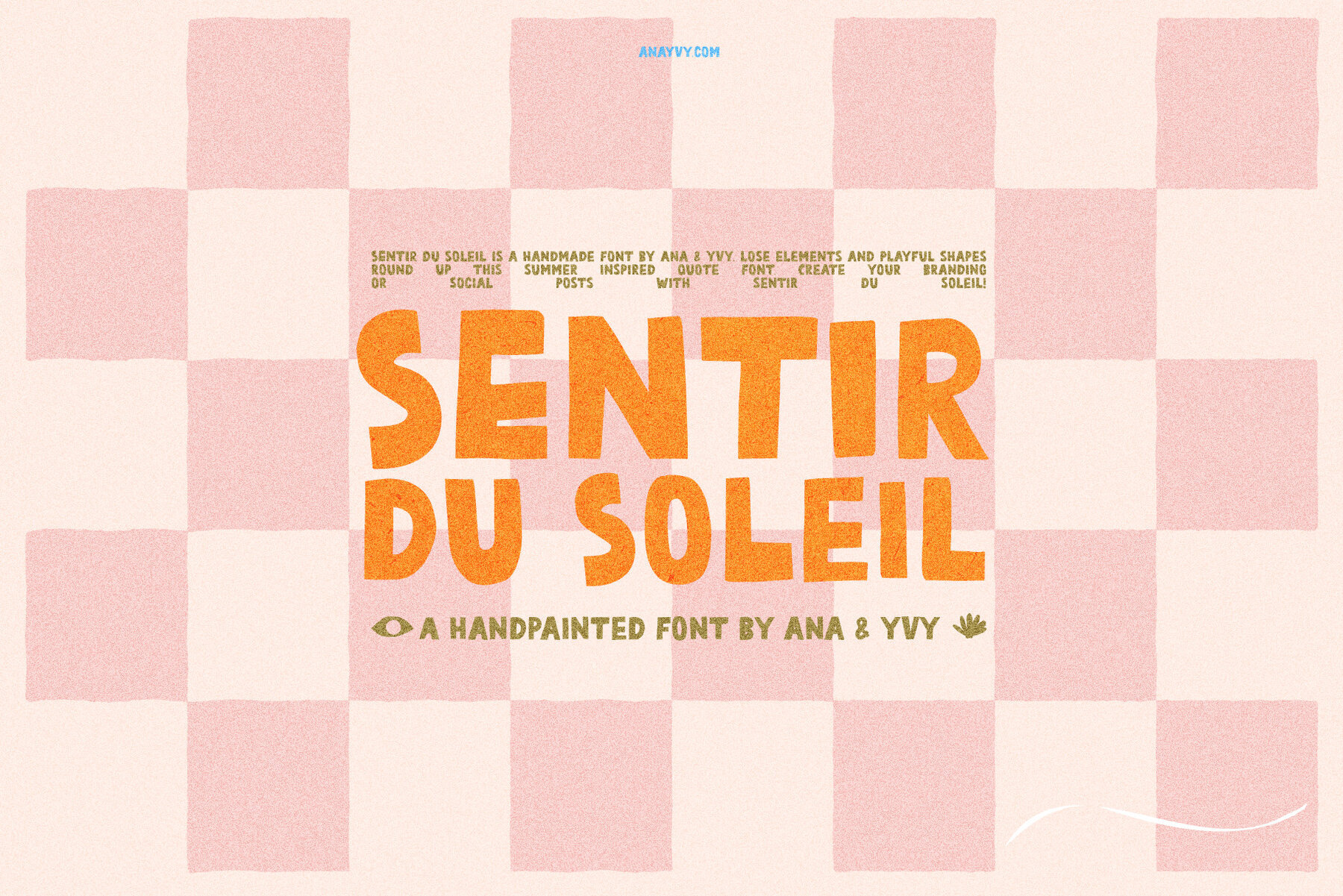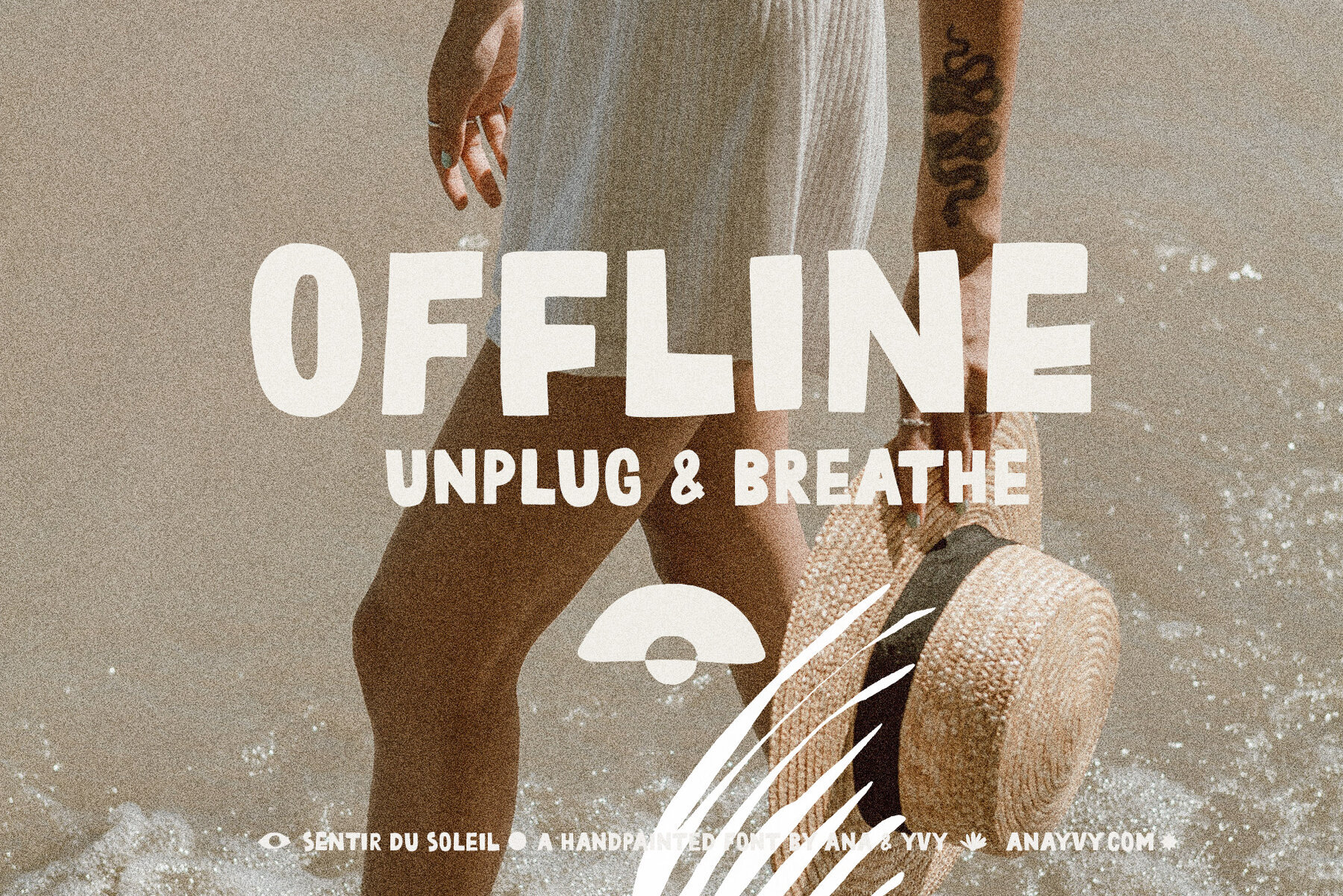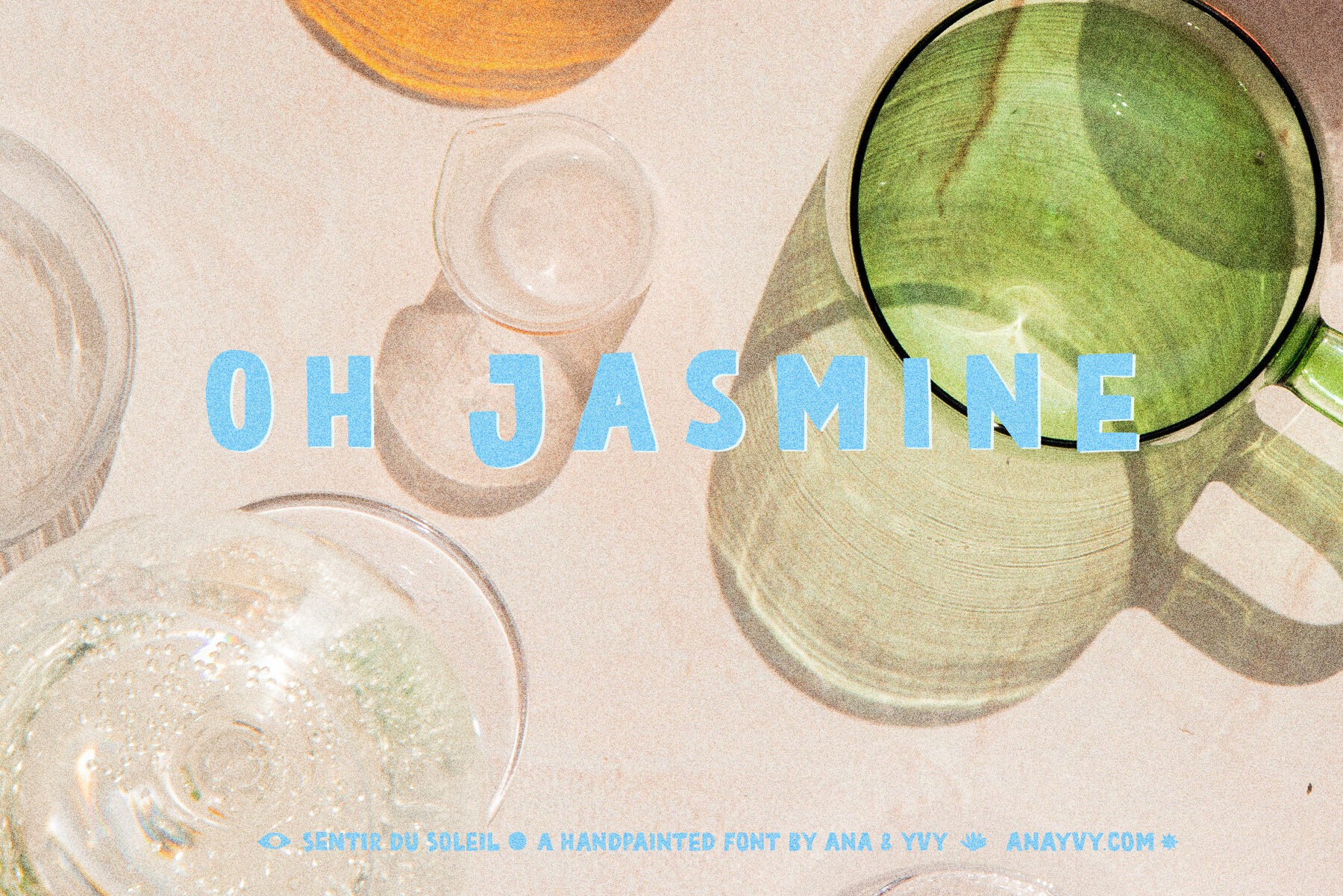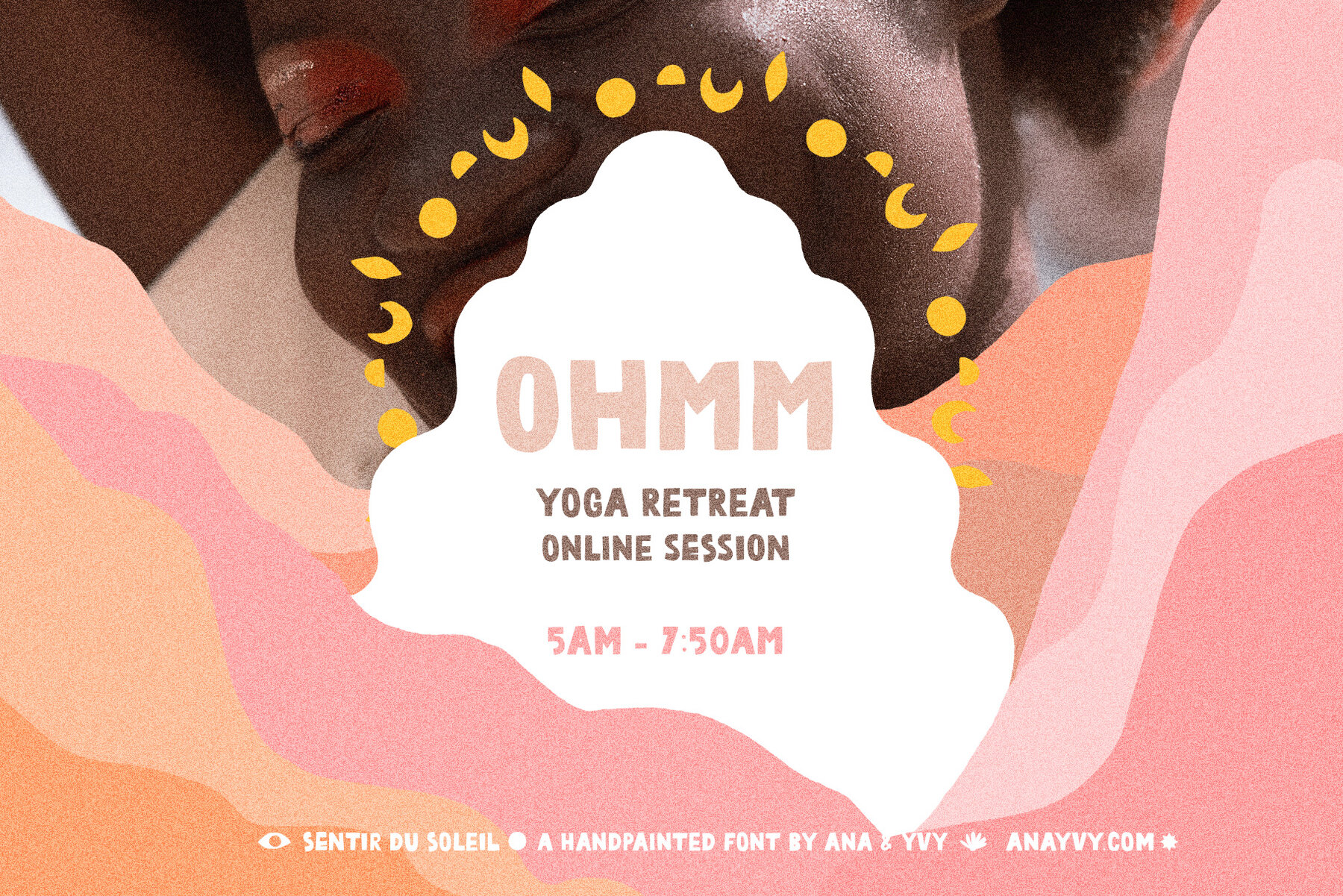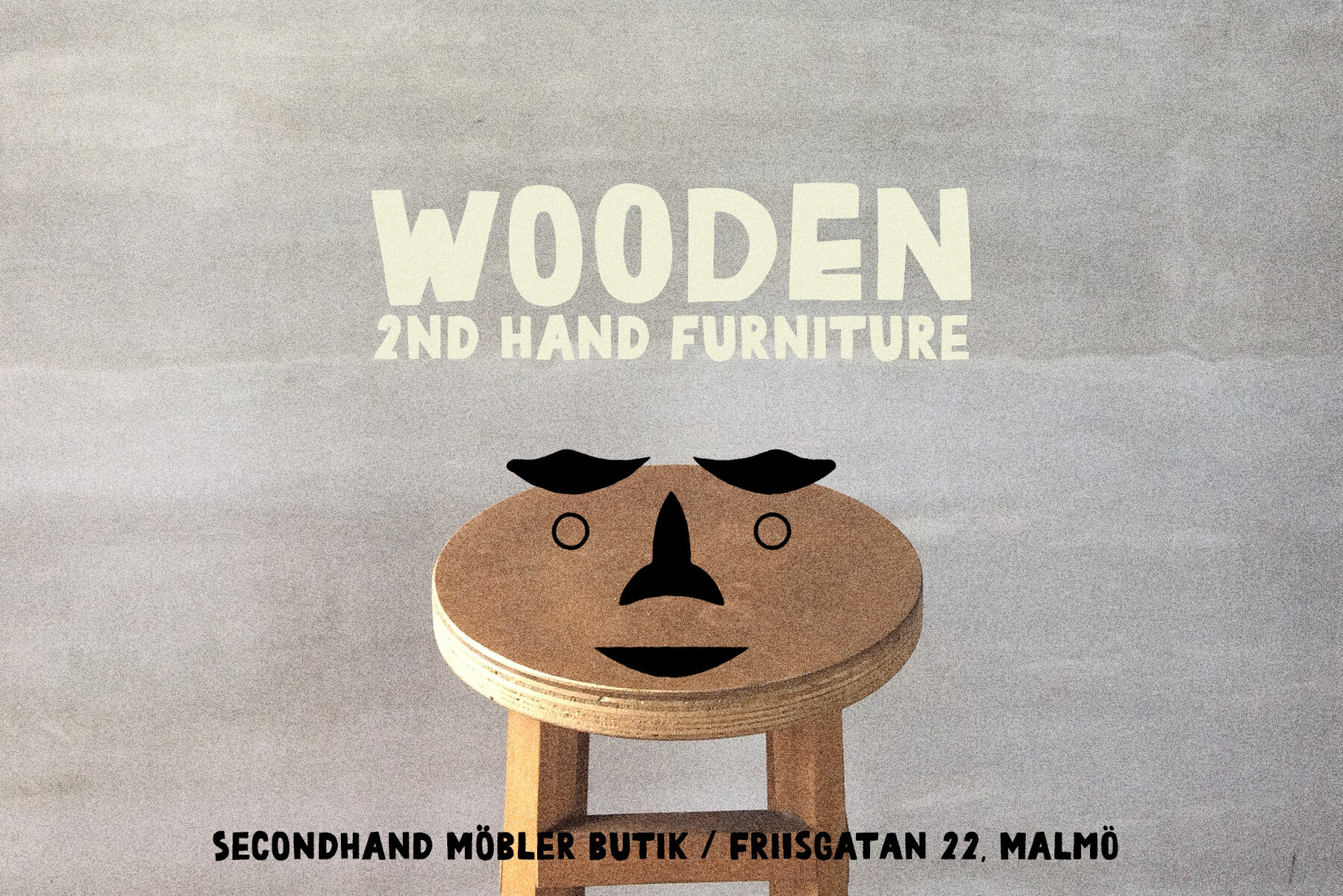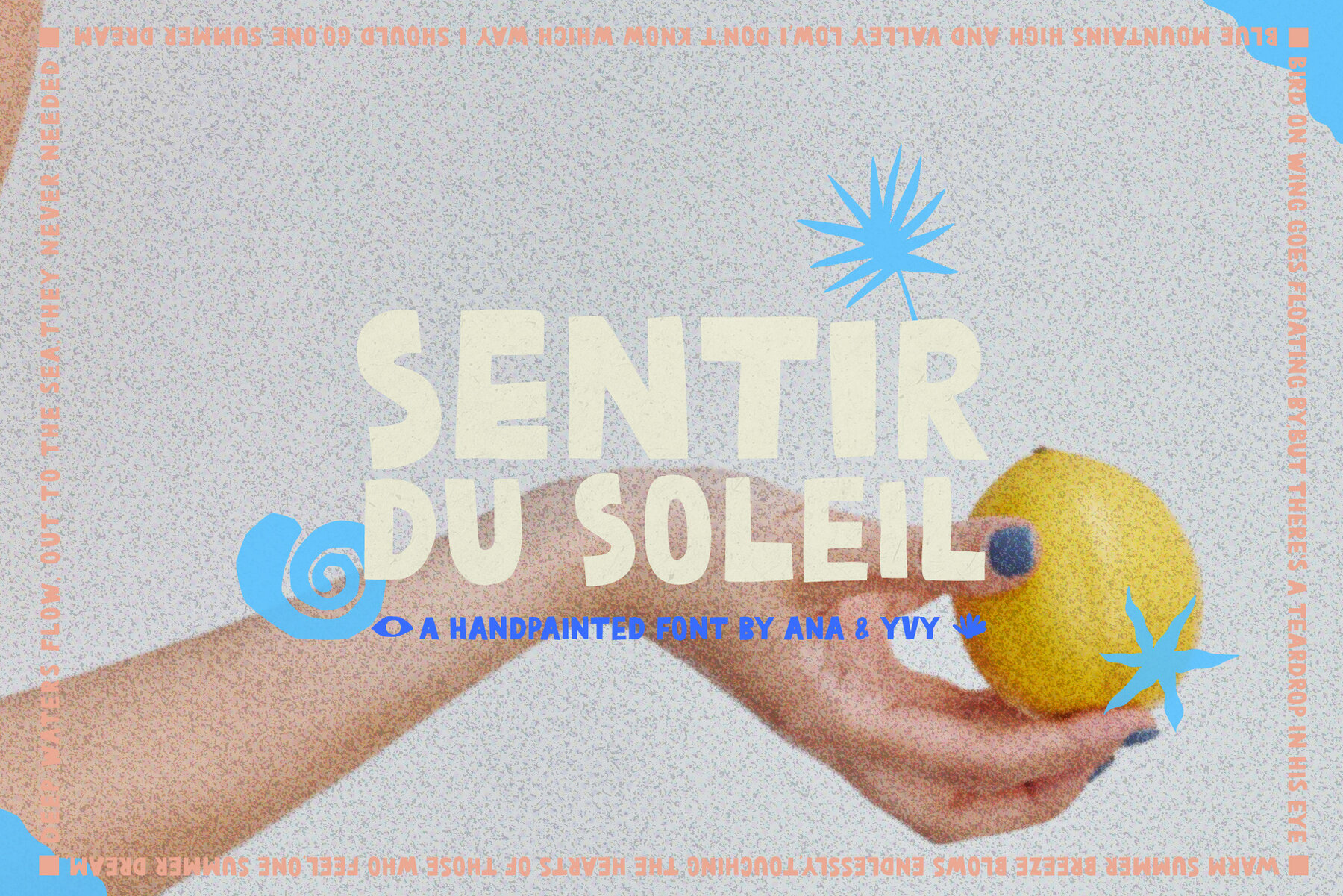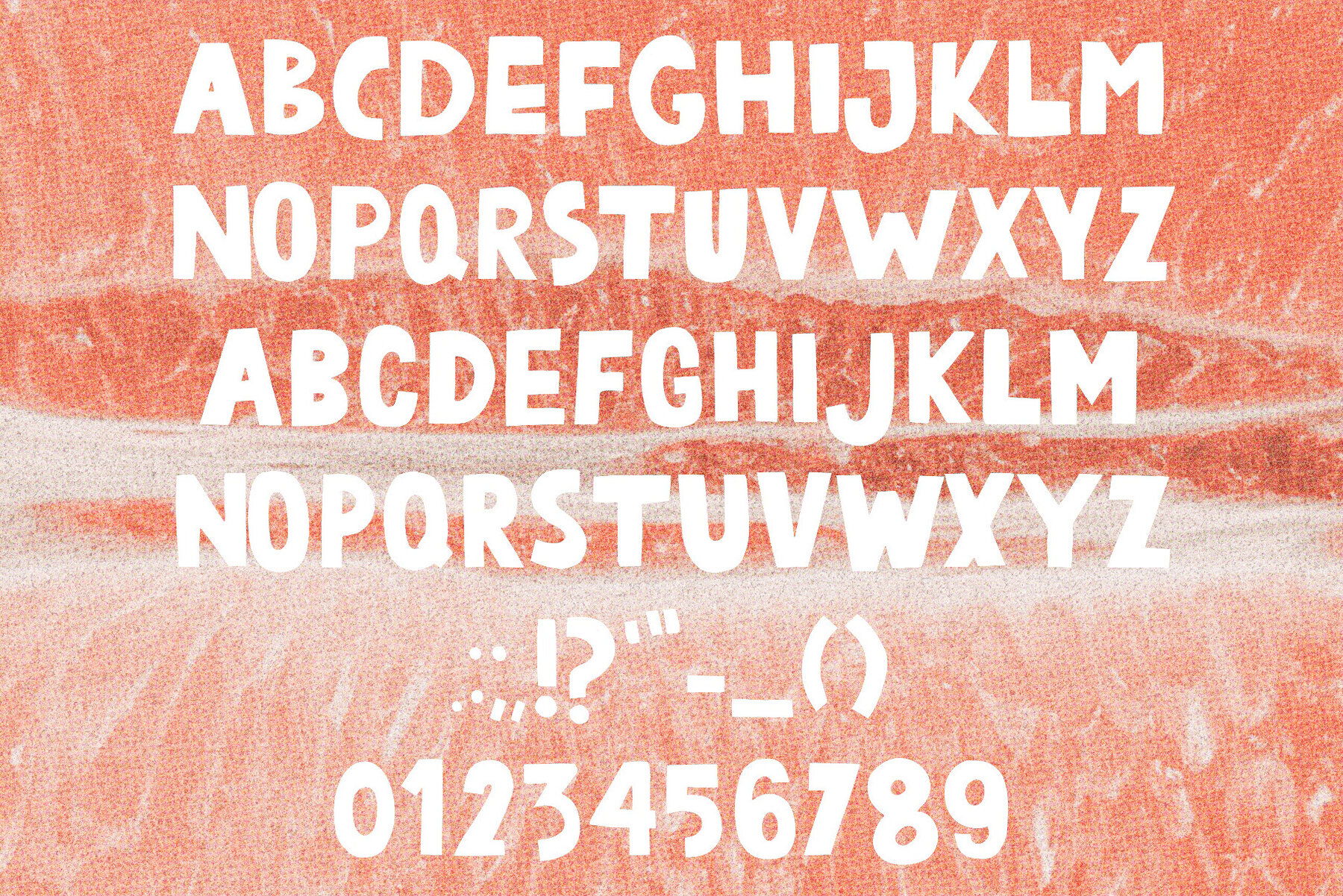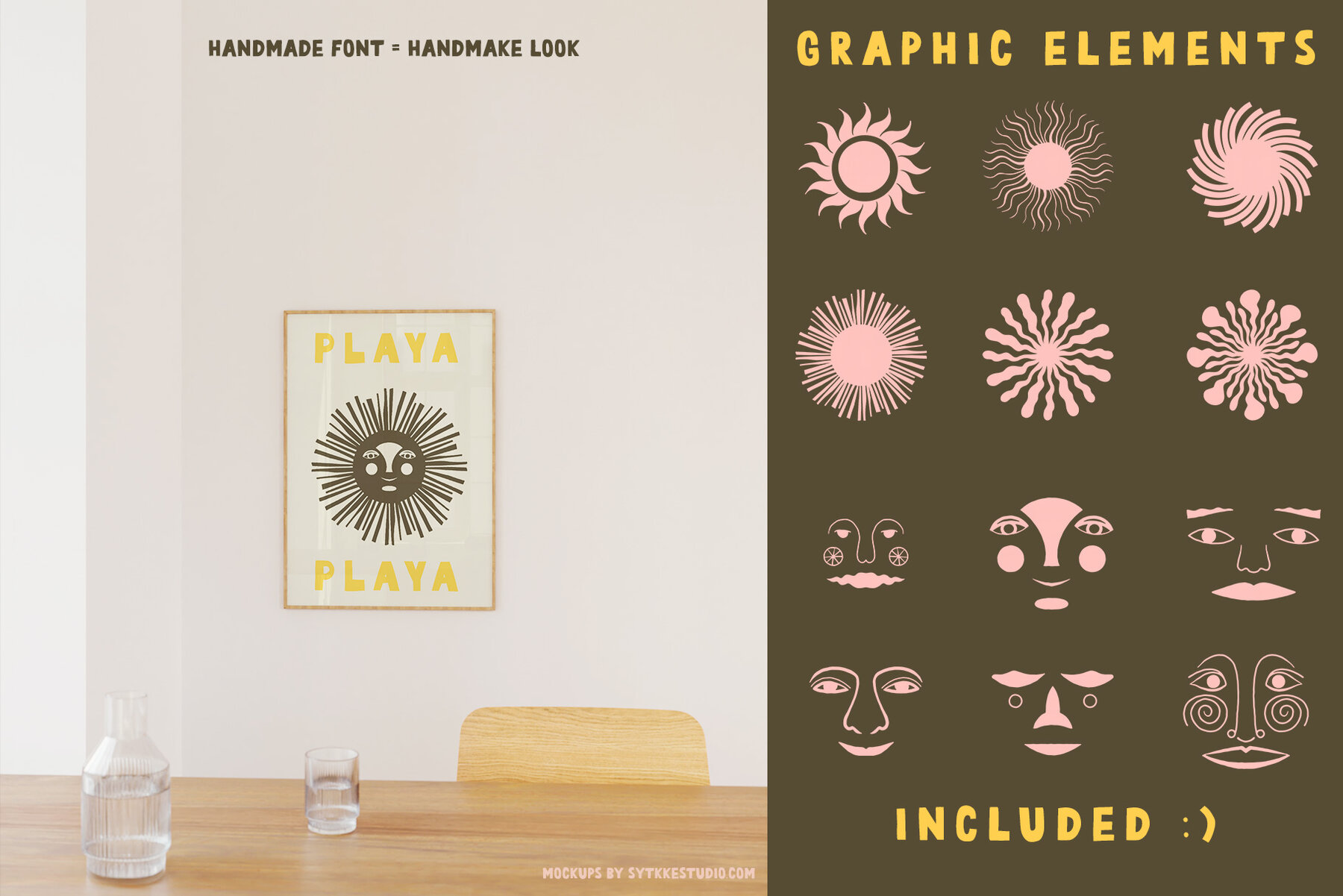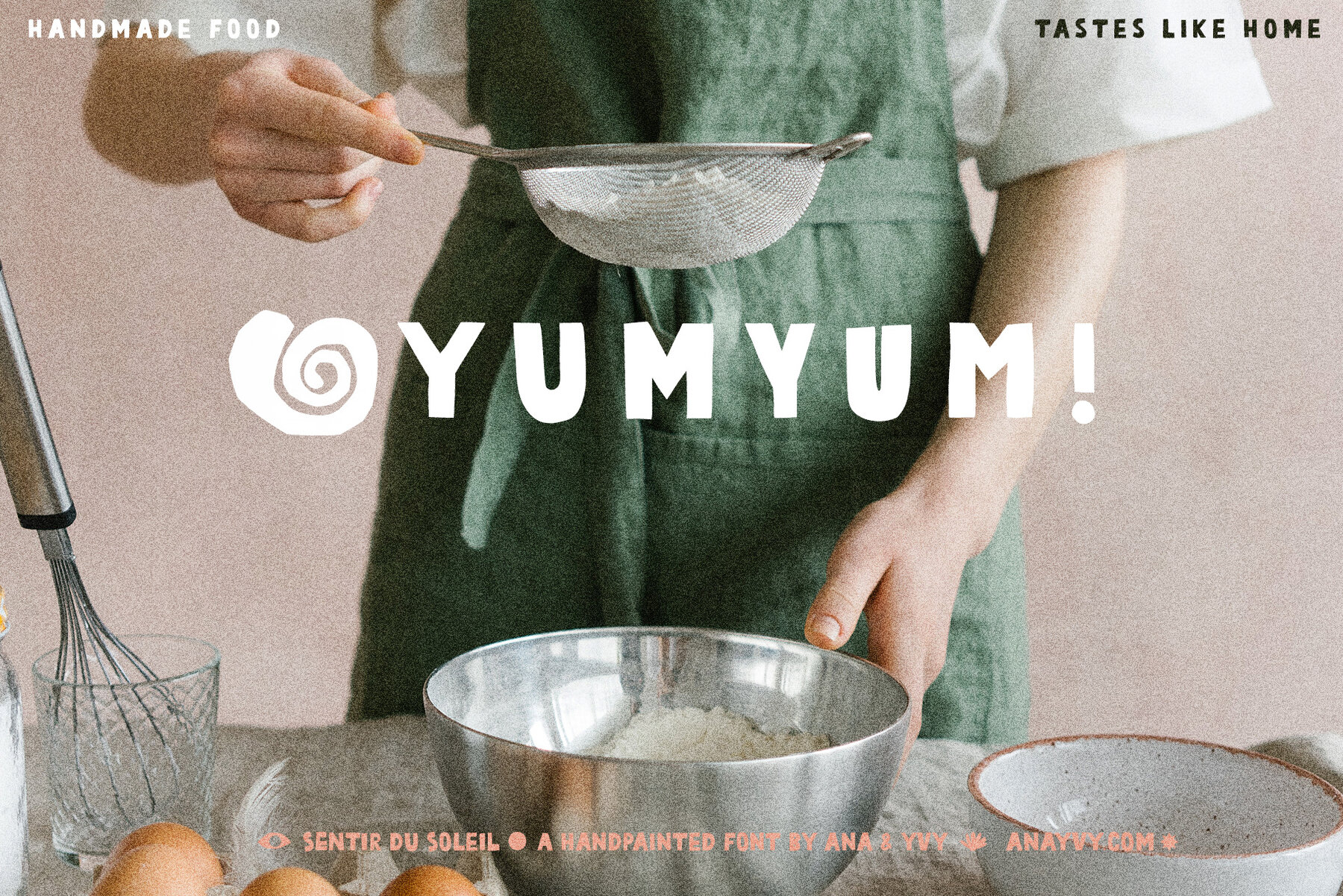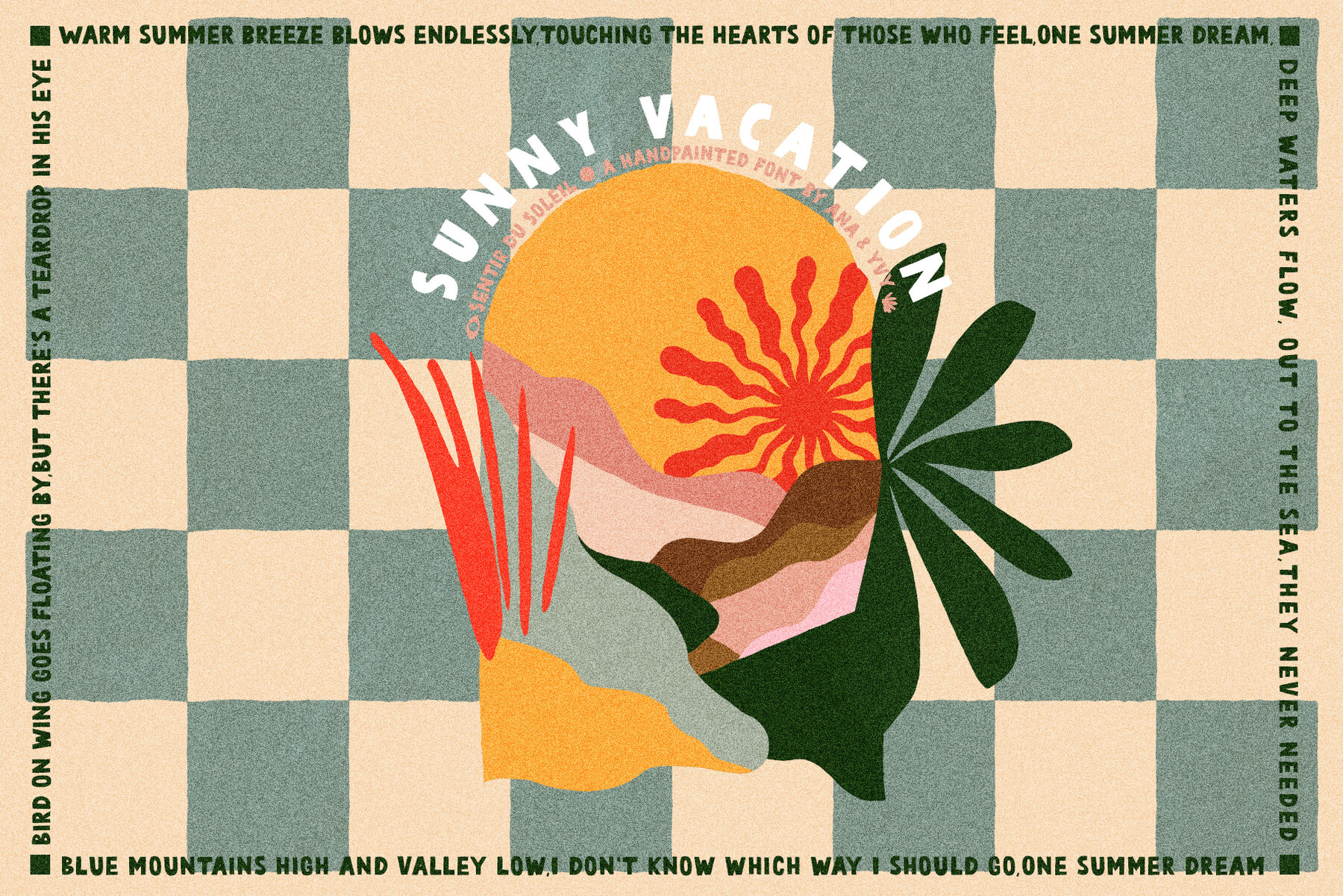
Sentir Du Soleil Font
Embrace creativity with Sentir Du Soleil, a whimsical all-caps cutout-style marker font. Its playful nature allows for seamless integration into a variety of design projects. Lowercase letters serve as unique alternatives to their uppercase counterparts, offering a handmade aesthetic that is both charming and versatile. Perfectly suited for greeting cards, impactful quotes, social media imagery, and vibrant posters, Sentir Du Soleil brings a touch of playfulness to any branding effort.Sentir Du Soleil: Playful All-Caps Cutout Marker Font